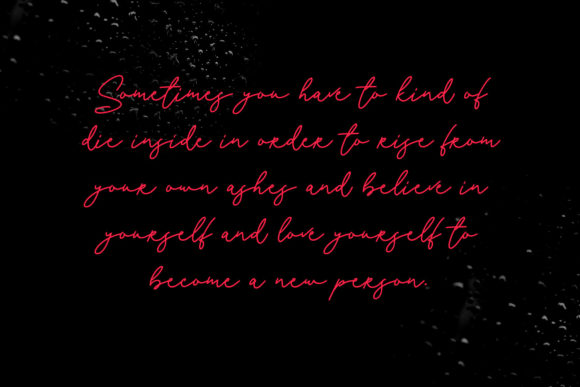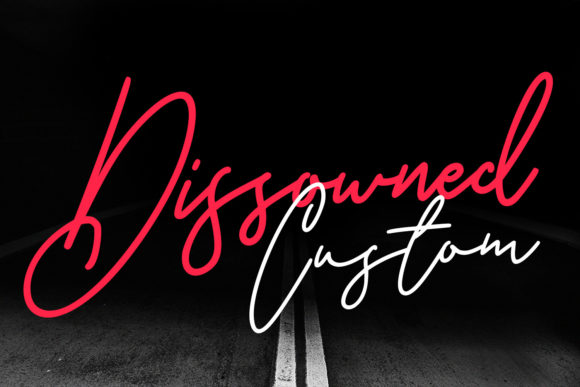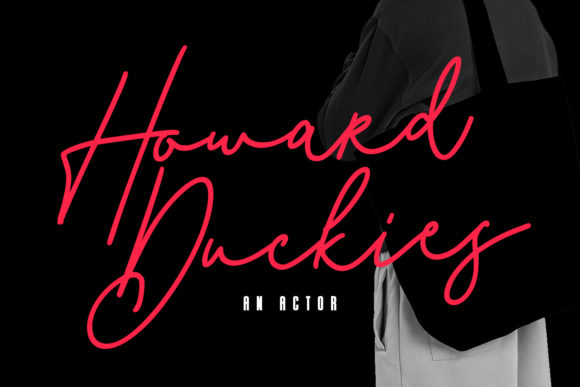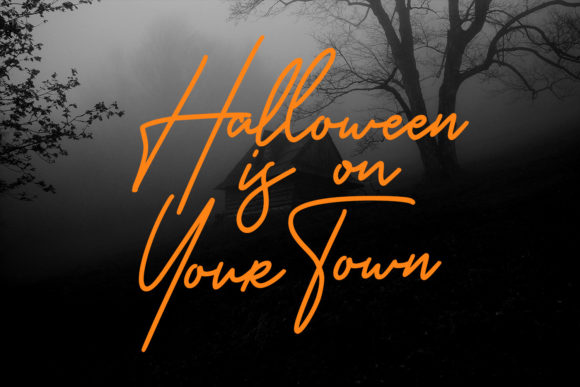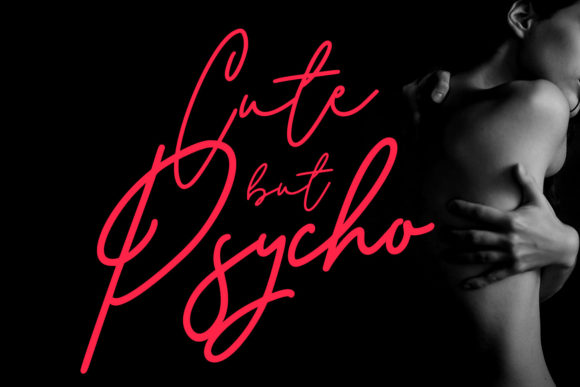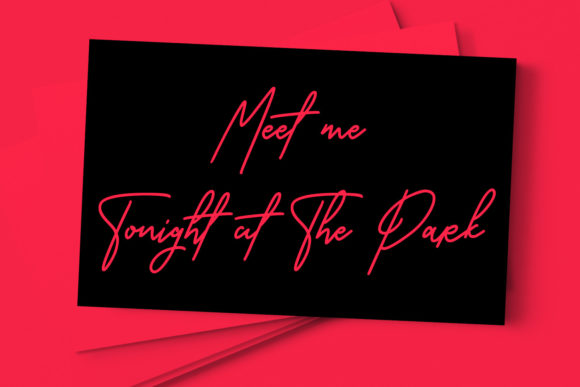
Discover the Elegance of Gillfloys Font: Elevate Your Designs with a Stylish Handwritten Touch
In the world of typography, fonts play a crucial role in conveying the message and aesthetic of a design. Among the myriad of fonts available, Gillfloys stands out as a stylish handwritten font that has captured the hearts of designers and crafters alike. Masterfully designed to exude class and sophistication, Gillfloys brings a touch of elegance to any project. Let’s dive deeper into what makes Gillfloys a must-have in your typography arsenal.
The Essence of Gillfloys Font
Gillfloys is not just another font; it’s an experience. It masterfully blends traditional calligraphic influences with a modern twist, making it both classy and contemporary. This unique fusion allows Gillfloys to stand out in a crowded field, offering designers a versatile tool that can be used across a wide range of projects. Whether you’re working on a branding campaign, a website design, or crafting beautiful invitations, Gillfloys is sure to leave a lasting impression.
Why Designers and Crafters Love Gillfloys
So, what makes Gillfloys a favorite among designers and crafters? The answer lies in its versatility and the emotional connection it establishes with the audience. Here are a few reasons why:
- Classy yet Contemporary: Gillfloys strikes the perfect balance between being classically elegant and refreshingly modern. This balance makes it suitable for a wide array of design projects, from luxury brands to personal blogs.
- Handwritten with Love: The font’s handwritten nature adds a personal touch to any design. It’s like leaving a piece of yourself in your work, making it more relatable and engaging to your audience.
- Easy to Read: Despite its stylized appearance, Gillfloys maintains a high level of readability. This is crucial for ensuring that your message is communicated effectively, without compromising on aesthetics.
- Versatile: From headings and titles to body text, Gillfloys can be used in various contexts. Its flexibility allows designers to experiment with different styles and layouts.
How to Use Gillfloys Font in Your Projects
Incorporating Gillfloys into your design workflow is straightforward. Here are some tips on how to make the most out of this beautiful font:
- Pair it Wisely: When using Gillfloys, consider pairing it with simpler fonts for body text. This contrast will help highlight the elegance of Gillfloys while maintaining readability.
- Experiment with Sizes: Don’t be afraid to experiment with different sizes. Gillfloys can make a statement as a headline or work beautifully in smaller sizes for captions and quotes.
- Play with Colors: While black is classic, exploring different colors can add another layer of meaning to your design. Consider the mood you want to convey and choose a color palette that complements Gillfloys.
Gillfloys font is more than just a stylish handwritten font; it’s a tool that can elevate your designs to new heights. Its unique blend of classy calligraphic influences and contemporary freshness makes it a versatile choice for designers and crafters looking to add a personal touch to their work. Whether you’re aiming for sophistication, elegance, or simply want to stand out from the crowd, Gillfloys is sure to become a true favorite in your typography collection. So, fall in love with Gillfloys and bring your projects to the highest levels of creativity and professionalism.
Discover the elegance of Gillfloys today and transform your designs with its stylish handwritten charm!